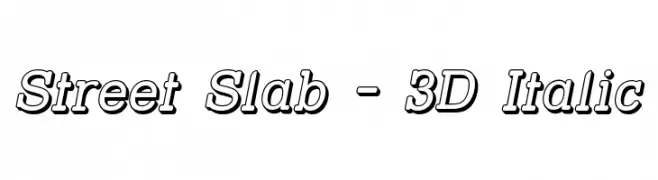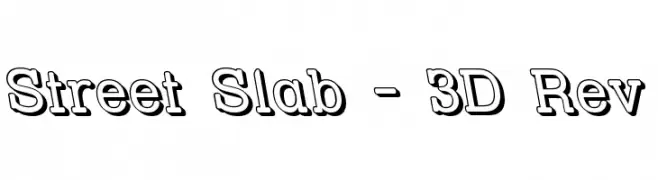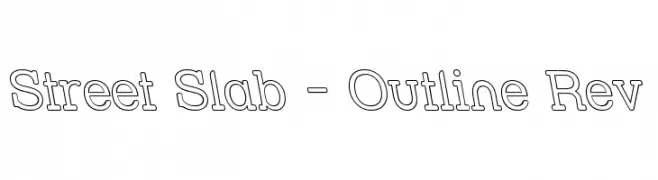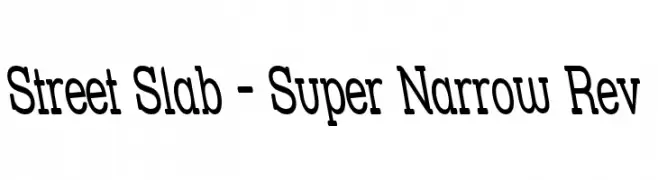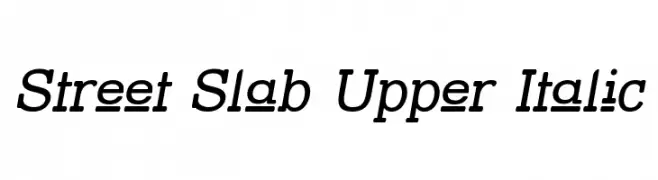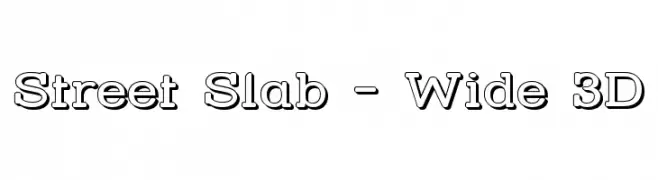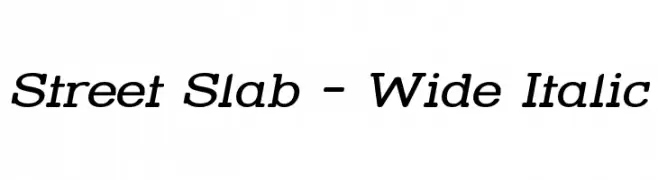
A bold, 3D slab serif font with italicized characters and outlined shadow effects.
A wide, italic slab serif font with a modern and dynamic style.
A bold slab serif font with strong, block-like serifs and clear, distinct characters.
A bold, 3D slab serif font with a shadow effect for impactful designs.
A bold, wide slab serif font with a modern yet classic style.
A bold, 3D slab serif font with a shadow effect, perfect for impactful designs.
A super narrow slab serif font with a modern and elegant style.
Bold slab serif font with a modern outline effect.
A modern slab serif font with italicized characters and prominent serifs.
A bold, 3D slab serif font with wide characters and a modern style.